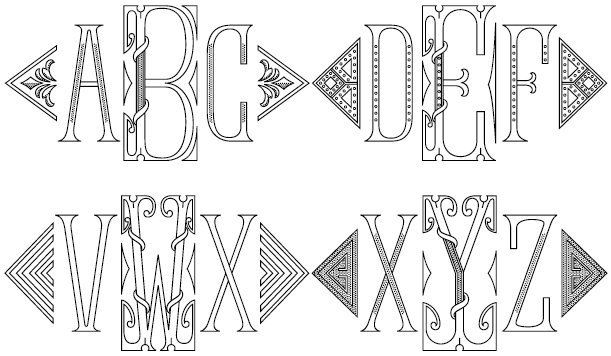
MFC Gilchrist Monogram
About MFC Gilchrist Monogram
The inspiration source for MFC Gilchrist Monogram is an extremely ornamented letterset from a vintage embroidery publication from the early 1900\’s. We\’ve digitally recreated the ornamental glyphs from the original design, and created a matching set of…